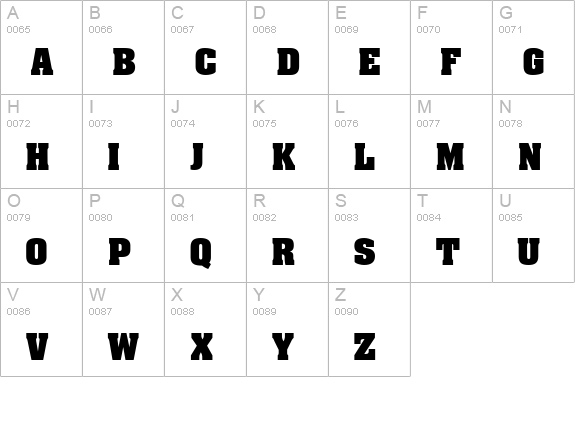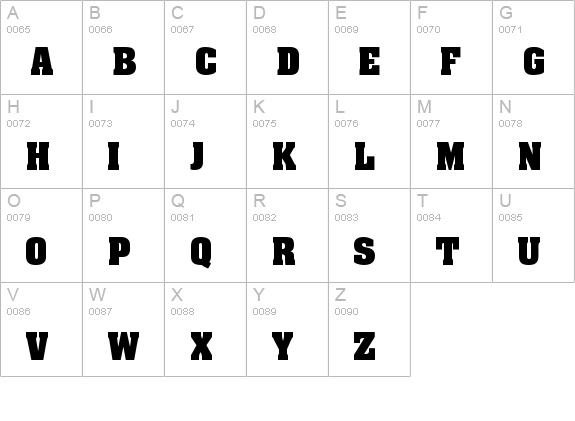
Aapex font is a stunning display typeface that exudes elegance and modernity. Its unique and intricate design captivates the eye, making it a perfect choice for various creative projects. With its clean lines and sharp edges, Aapex font adds a touch of sophistication to any design. What makes Aapex font even more appealing is that it is completely free! Yes, you read that right – this incredible font is freely available to download at FontsMarket.com. So whether you're a graphic designer working on a professional project or an individual looking to add a touch of style to your personal creations, Aapex font is the ideal choice. The versatility of Aapex font is truly remarkable. It can be used for logo designs, branding materials, posters, invitations, headlines, and so much more. Its legibility and distinctiveness ensure that your message will be conveyed with impact and clarity. One of the standout features of Aapex font is its wide range of weights and styles. From bold and impactful to delicate and sophisticated, this font offers endless possibilities for customization and experimentation. Its extensive character set also includes a variety of ligatures and alternate glyphs, providing even more options to create visually stunning designs. Downloading Aapex font from FontsMarket.com is a breeze. Simply visit the website, search for Aapex font, and click on the download button. Within seconds, you'll have this remarkable font ready to use in your projects. So why wait? Embrace the beauty and versatility of Aapex font today. Download it for free at FontsMarket.com and unlock a world of creative possibilities.